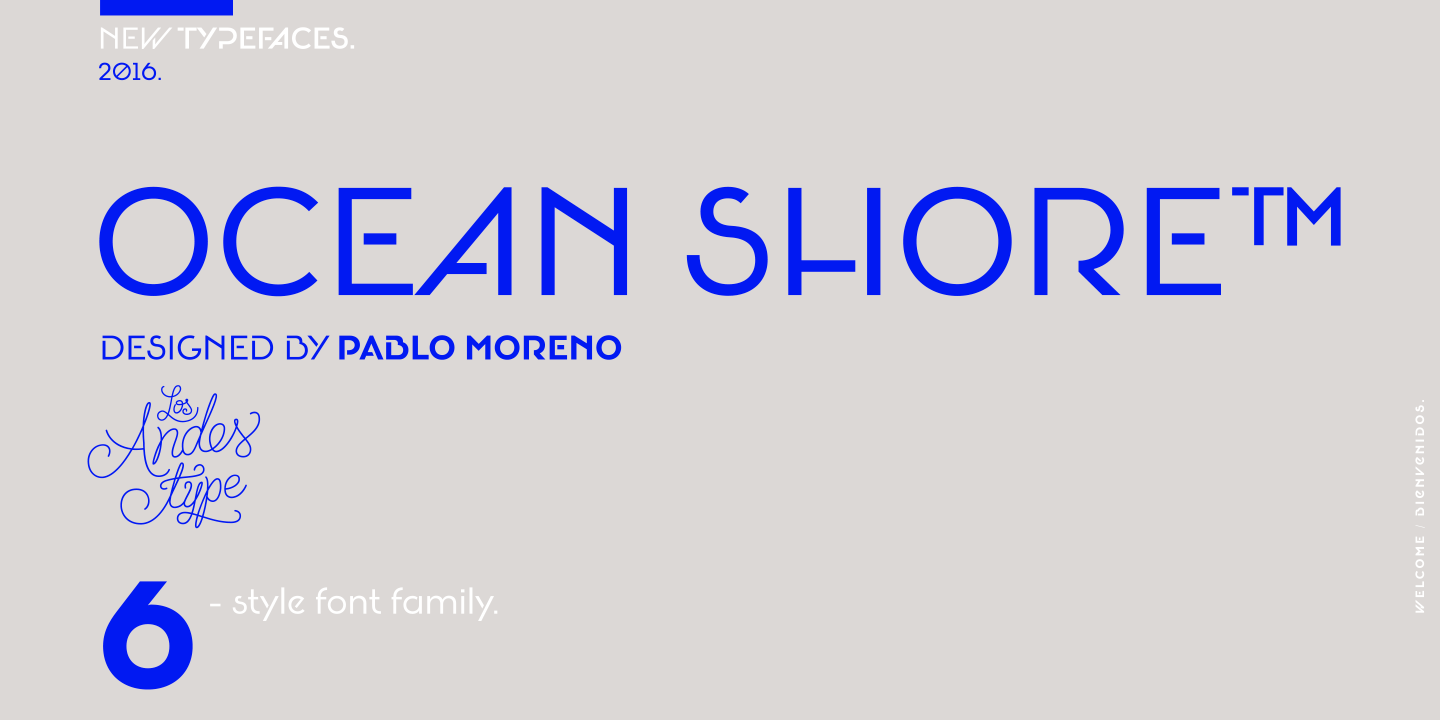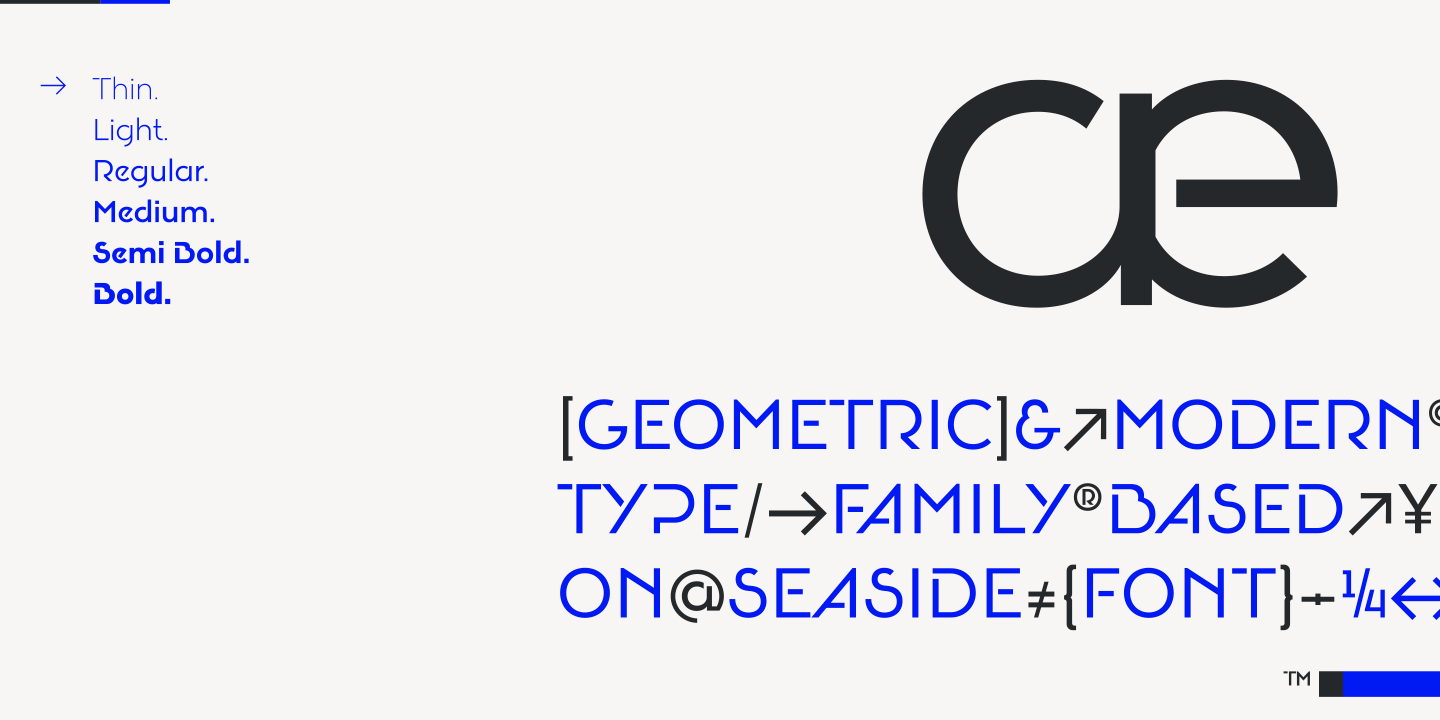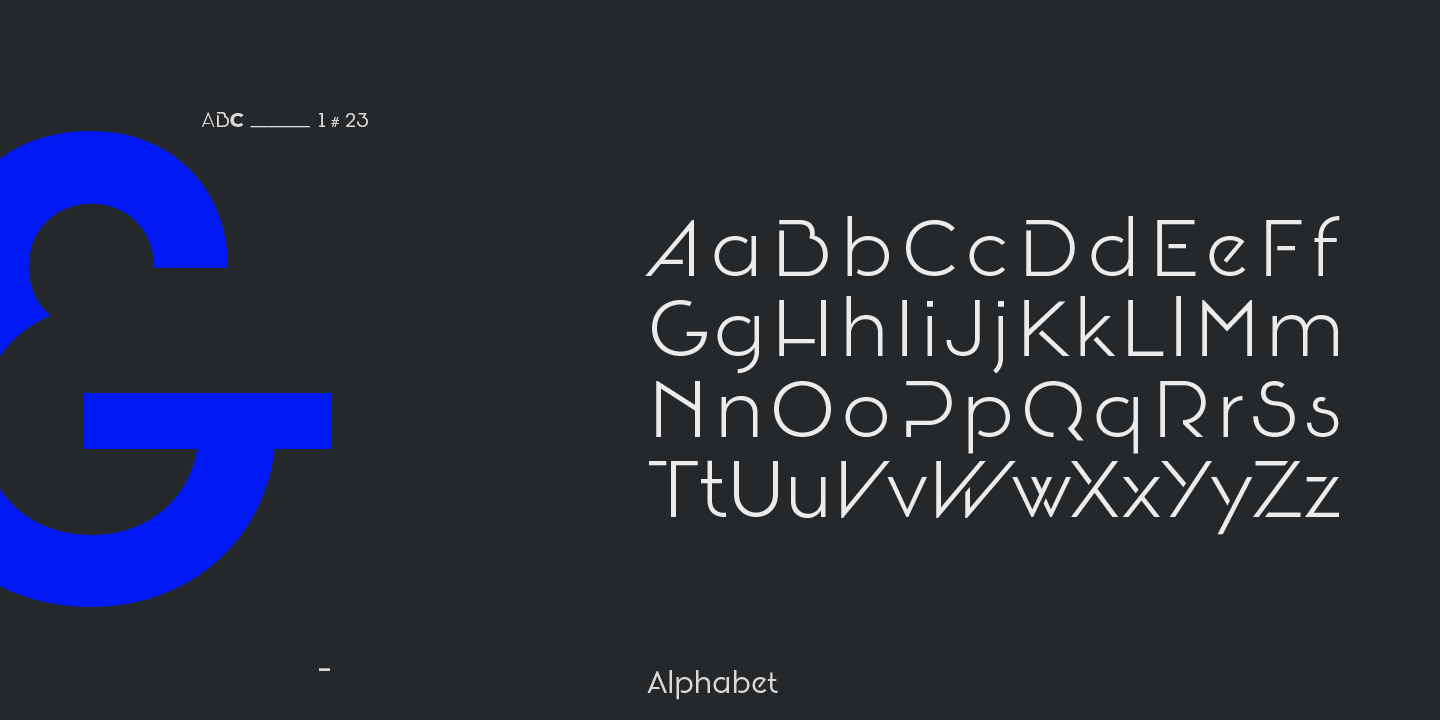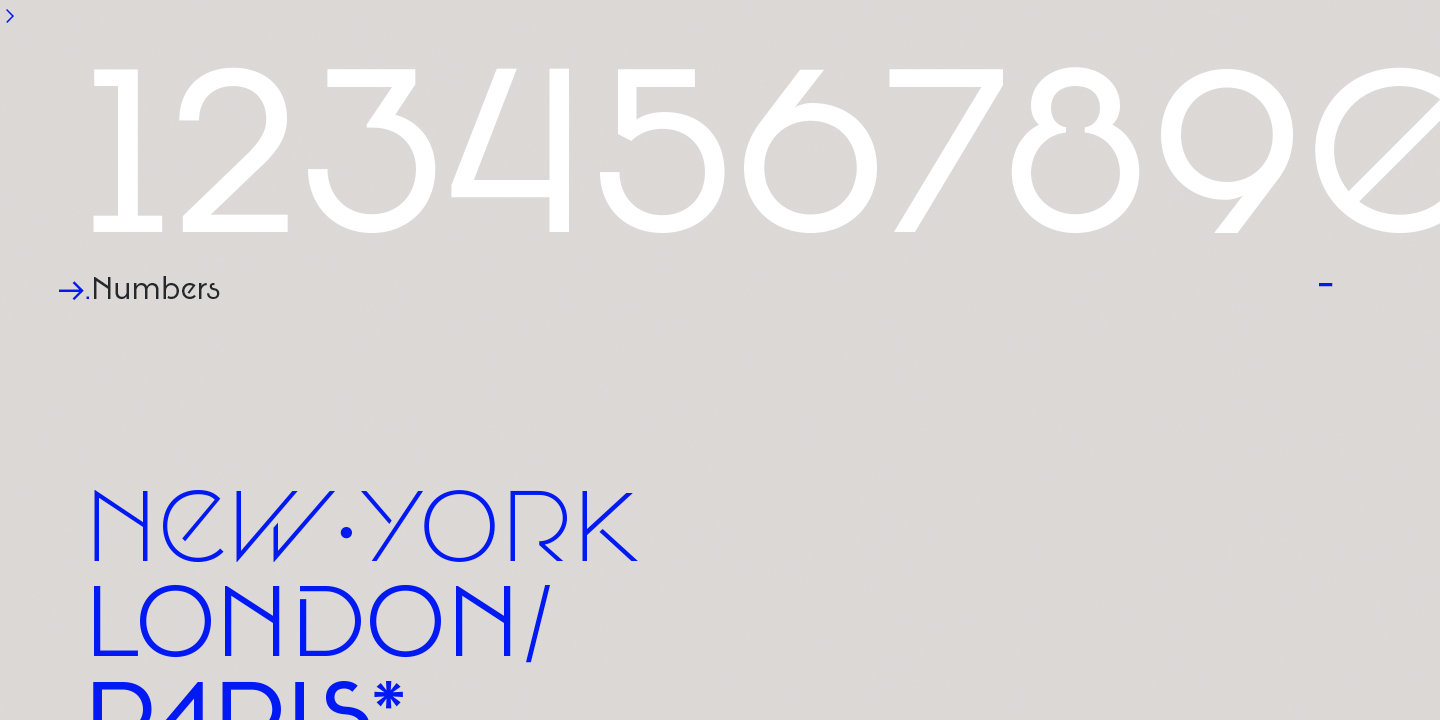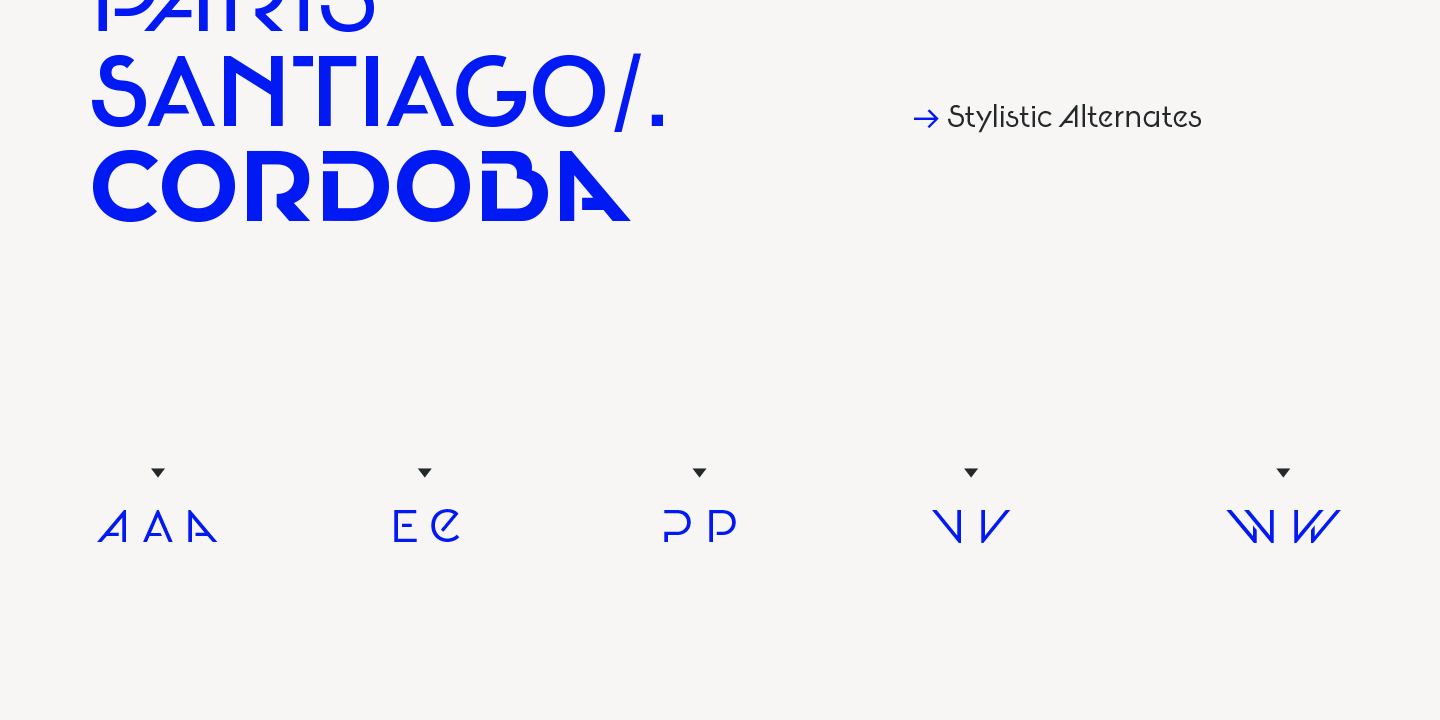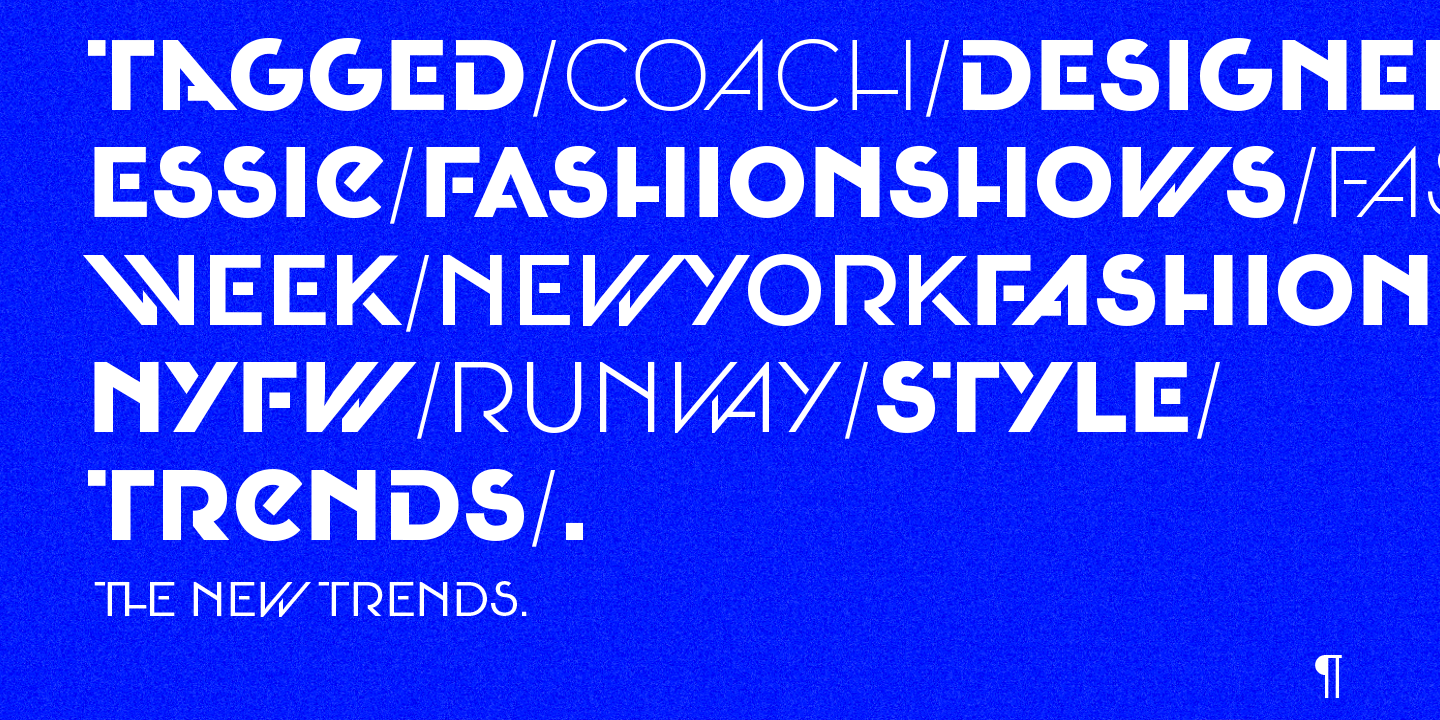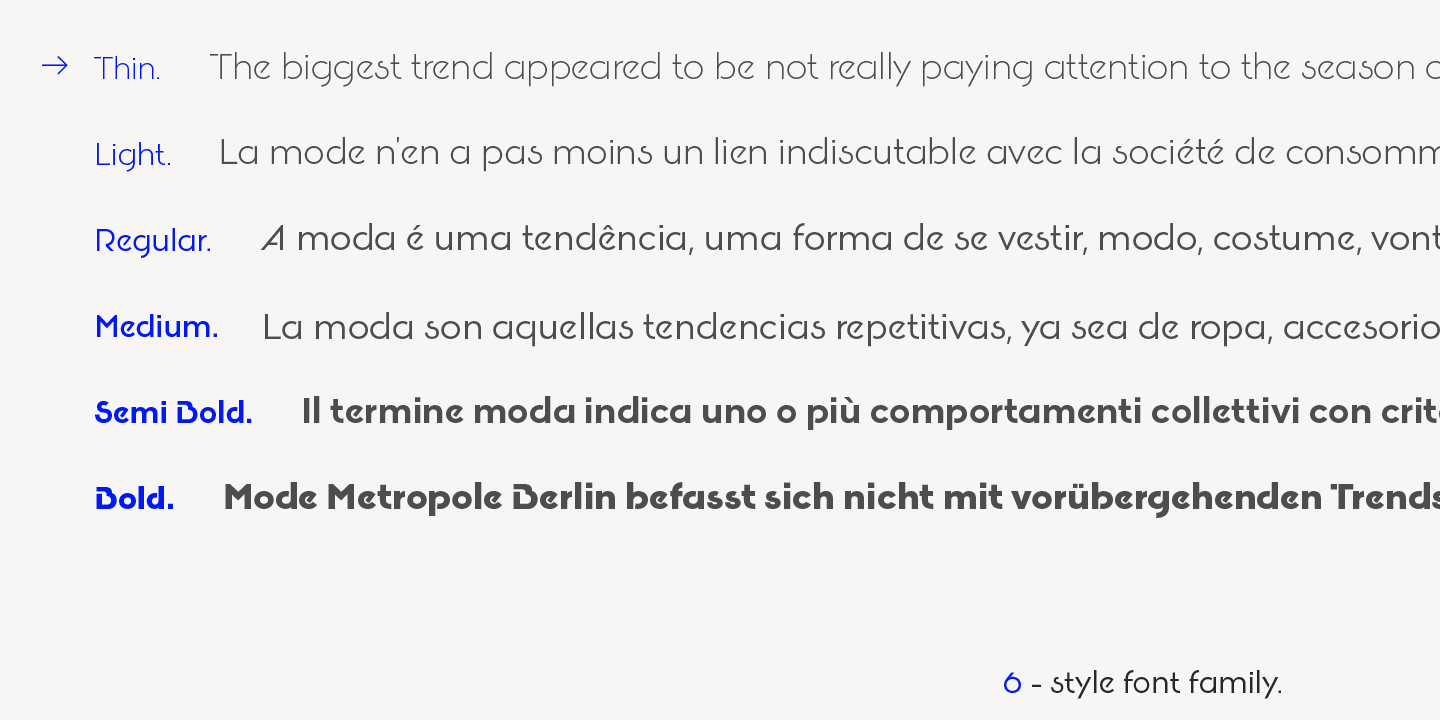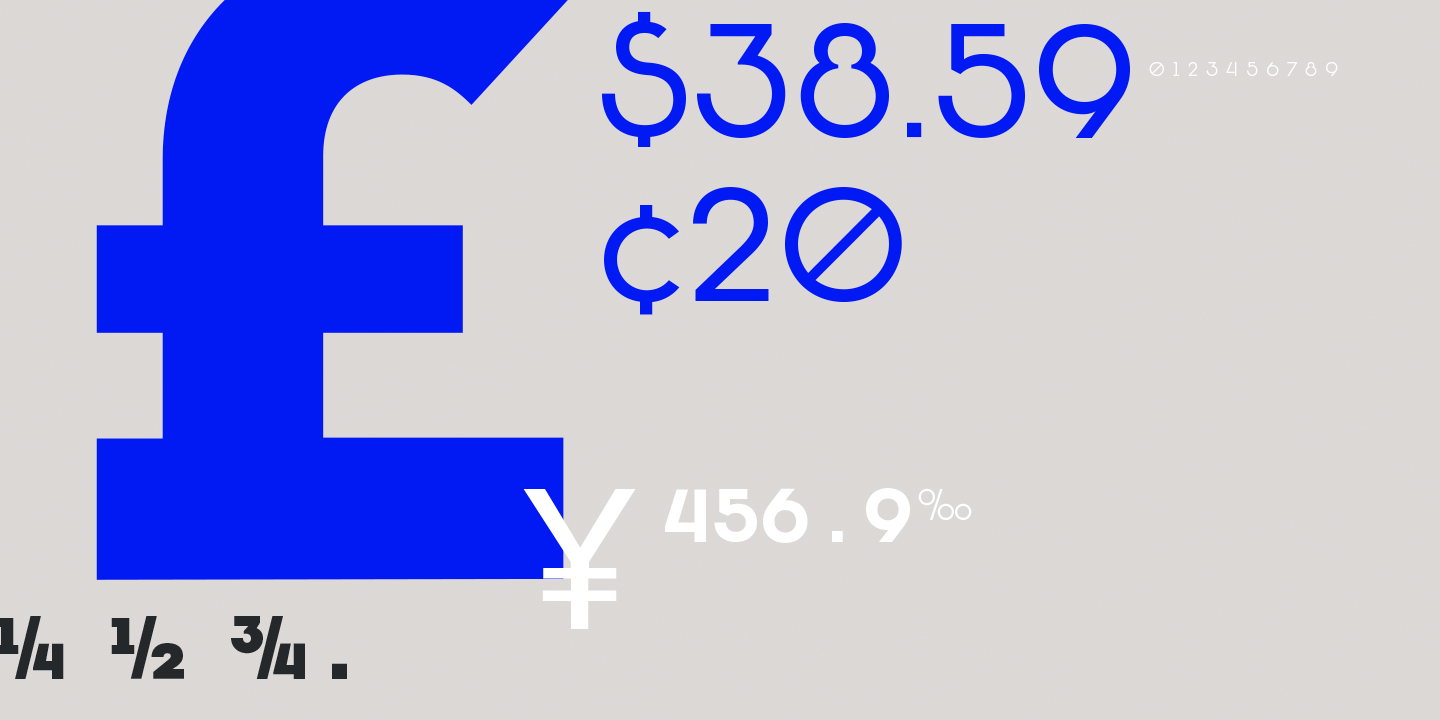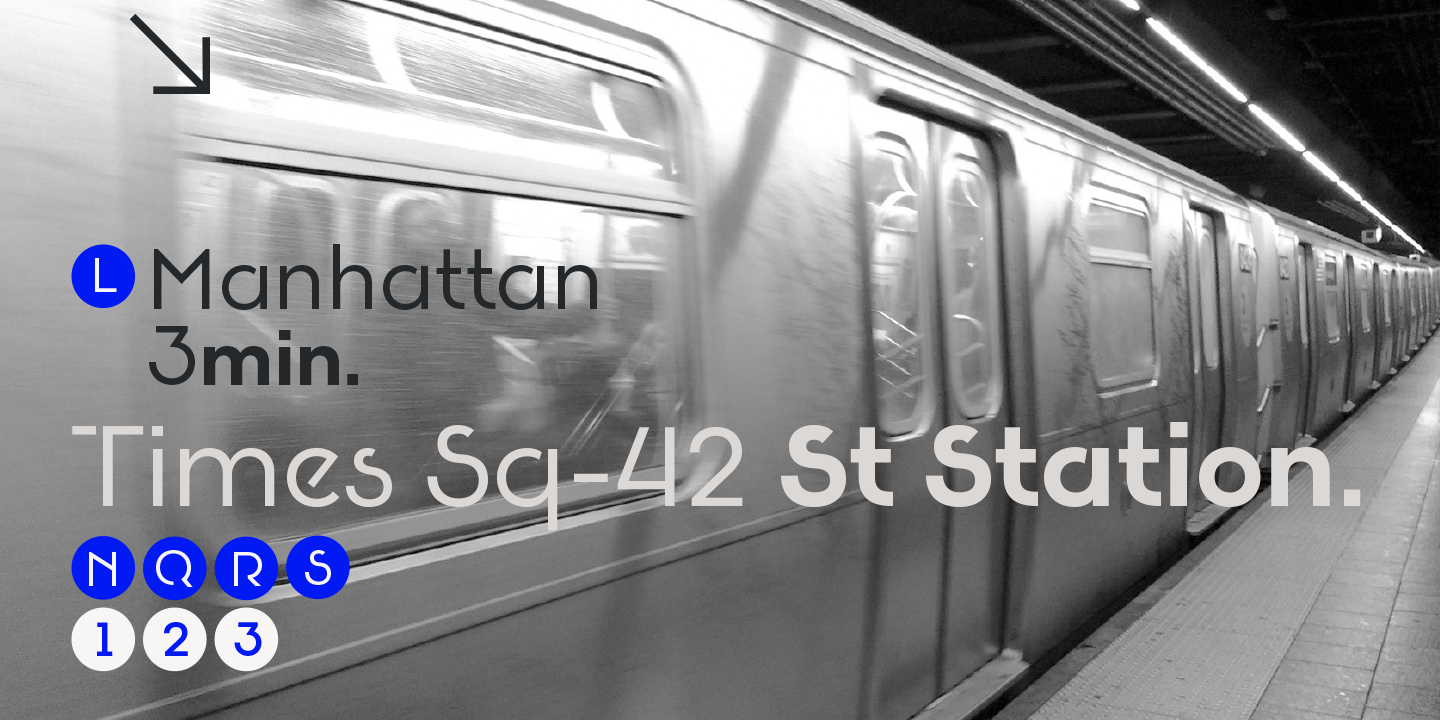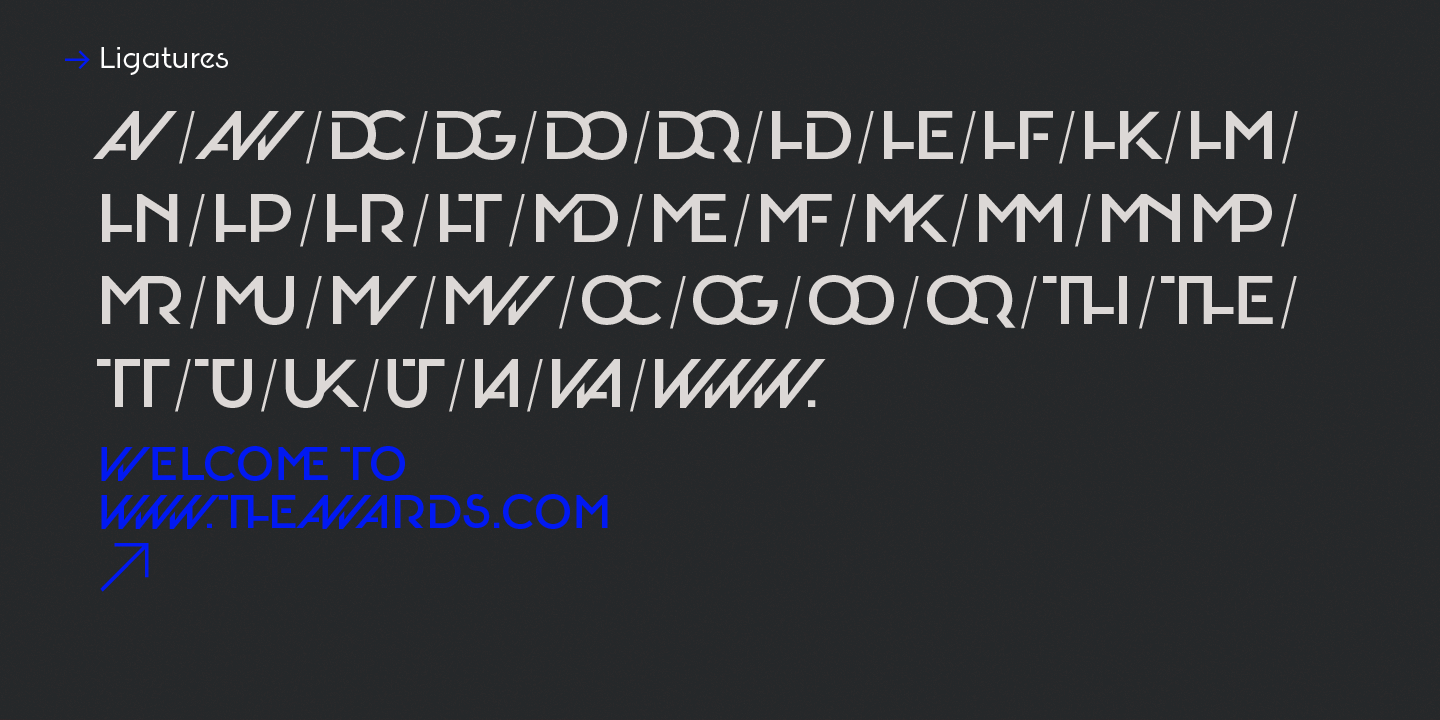
Oceanshore Family (6 fonts)
From Los Andes Type
The family includes 6 styles, from Thin to Bold, each of them in a wide variety of alternates and ligatures that provides the users with a number of choices when composing. Each font comprises more than 550 characters and supports over 200 Latin languages.
Seashore is well-suited for headlines, short text, posters, flyers and so on.